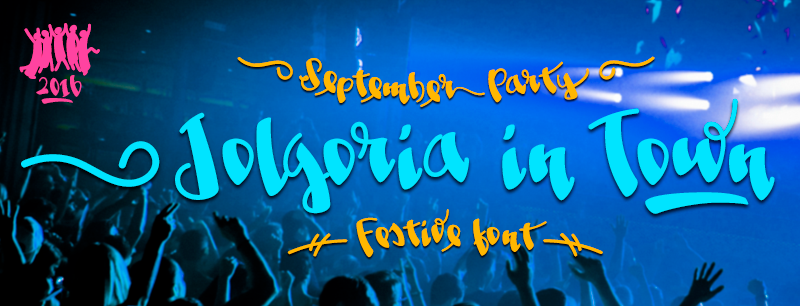
Jolgoria in Town is a handmade typography, funny calligraphic style is vigorous, and has an energetic movement that makes it ideal for elegant titles, party flyers or typographical posters. ---------- Use the following keys before or after each phrase to make ornaments: ( ) [ ] { } | _ Example: (Jolgoria in Town_ Use discretionary ligatures (dlig) to display the default character. ---------- • Bitcoin symbol (standar ligatures): #b ---------- • Free for Personal Use Only. • The commercial version has several sets of ornaments and terminals, initial and contextual swashes and many other functions OpenType. • Commercial License at:http://defharo.com/fonts/jolgoria-in-town-font/ |